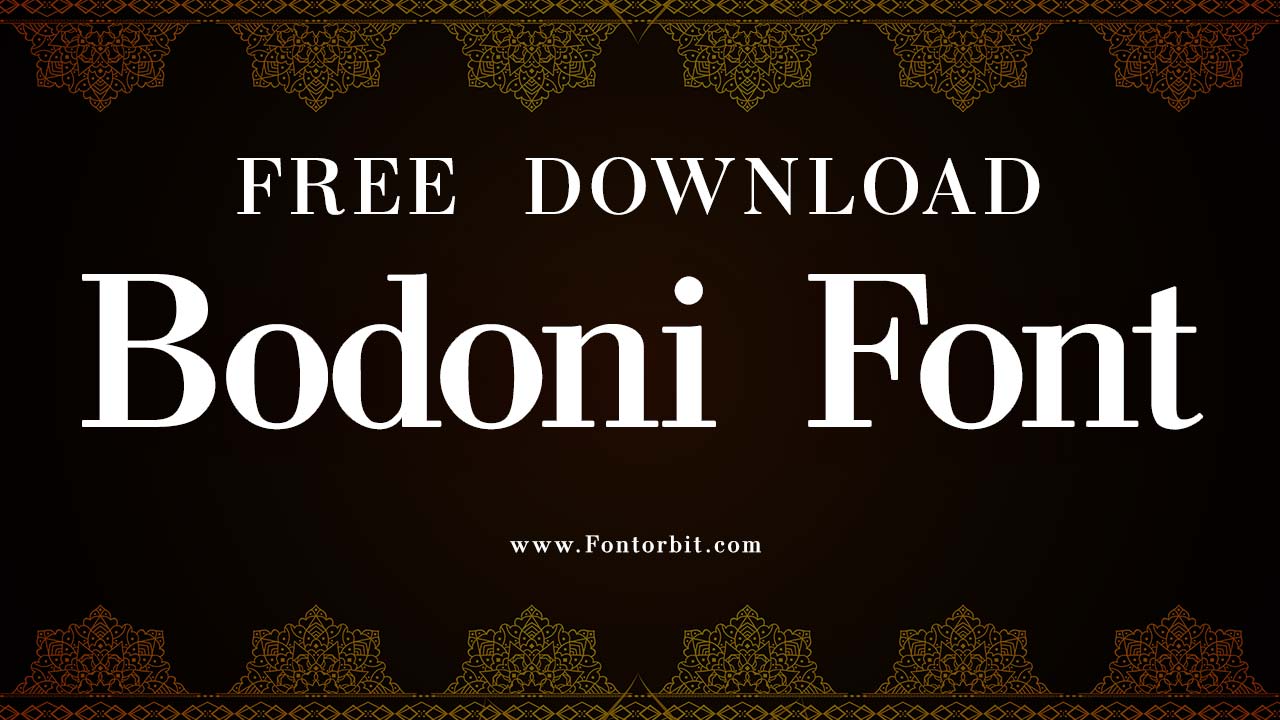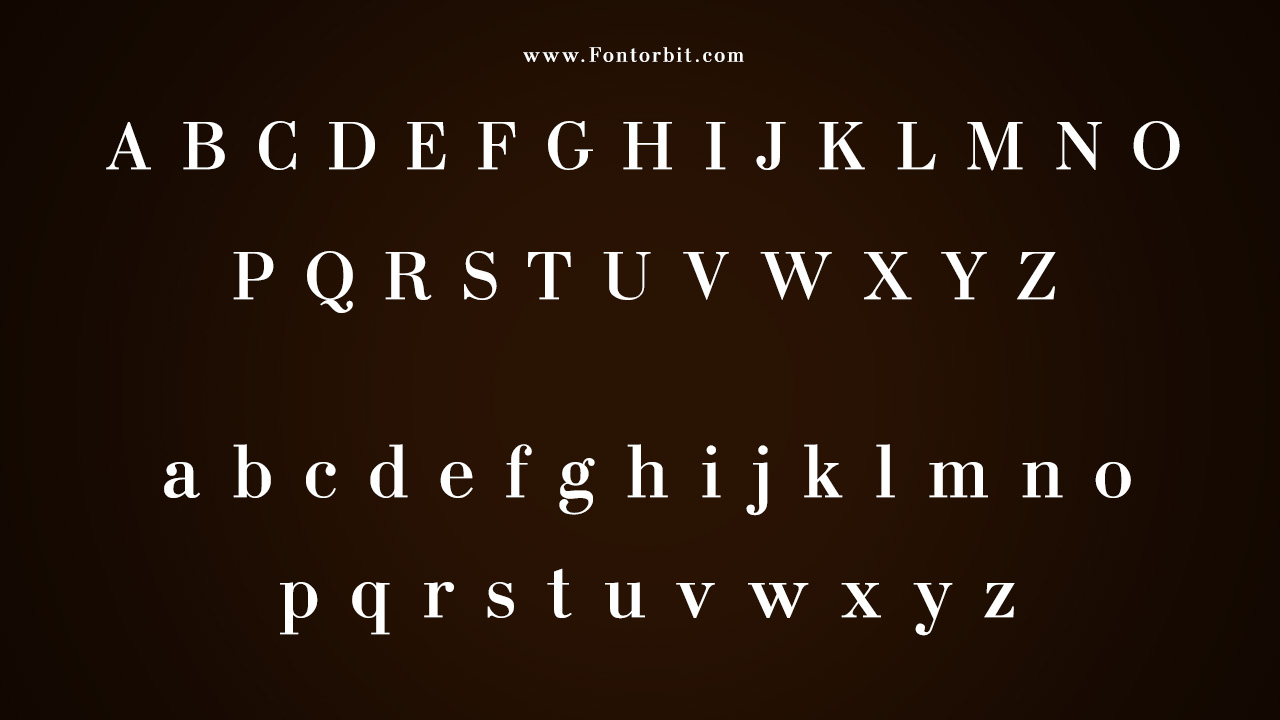
Bodoni Font is a classic serif typeface designed by Giambattista Bodoni in the late 18th century. Renowned for its elegant and modern aesthetic, Bodoni features high contrast between thick and thin strokes and is perfect for various design applications, including headlines, branding, and upscale print materials.
Type Of The Bodoni Font (Font Family)
Bodoni falls into the category of Didone or modern serif typefaces, known for their rational and geometric design. The Bodoni font family includes several variations that cater to different design needs, such as:
- Bodoni Regular
- Bodoni Italic
- Bodoni Bold
- Bodoni Condensed
Bodoni Font is ideal for adding a touch of sophistication to various projects. Known for its high contrast and geometric structure, Bodoni adds sophistication to any design. Its striking design makes it well-suited for:
- Logo design
- High-end packaging
- Editorial design and magazines
- Stylish headlines and quotes
- Invitations and event materials
The Bodoni Font Found In Use
Bodoni Font is widely utilized in creative projects requiring an elegant and modern typeface. It excels in editorial and branding applications where a refined and professional appearance is essential. The font is available in various digital formats for both personal and commercial use.
Bodoni Font is a timeless serif typeface perfect for a variety of creative uses. Its elegant design makes it ideal for making headlines stand out, enhancing branding materials, and adding a touch of sophistication to any design project. Whether for personal or commercial use, Bodoni is a versatile choice that brings a classic edge to your work.
1.What Are The Technical Aspects Of Bodoni Font That Designers Should Be Aware Of?
Designers should consider Bodoni’s high contrast between thick and thin strokes, its geometric structure, and potential legibility issues at small sizes, especially in digital applications.
2.What Are The Key Design Principles For Creating A Modern Interpretation Of Bodoni Font?
To modernize Bodoni, maintain its characteristic contrast while introducing softer curves, optimizing for readability, and possibly adjusting stroke thickness for better performance in digital formats.
3.What Are The Key Differences Between Bodoni Font And Other Serif Fonts?
Bodoni is distinguished by its extreme stroke contrast, geometric forms, and flat, unbracketed serifs, unlike other serif fonts that may feature more organic shapes and varied stroke widths.
4.Can Bodoni Font Pairing Work For Digital Design And Web Content?
Yes, Bodoni can pair effectively in digital design, especially when combined with sans-serif fonts for contrast, enhancing readability while maintaining a sophisticated and elegant aesthetic.
5.What Styles Are Popular In Bodoni Fonts?
Elegant, modern, and high-contrast styles are popular, offering a classic and sophisticated look suitable for various design applications.